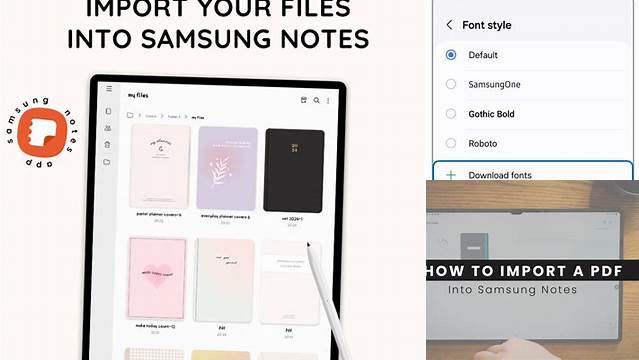
Import Fonts To Samsung Notes: A Simple Guide
Hey guys! Ever felt like the default fonts in Samsung Notes just don't quite cut it? Want to add a personal touch to your notes, making them truly yours? Well, you're in luck! Samsung Notes is a fantastic app, and one of its coolest features is the ability to import custom fonts. This means you can break free from the ordinary and inject some serious style into your note-taking. In this comprehensive guide, we'll walk you through everything you need to know about importing fonts into Samsung Notes, from finding the perfect fonts to installing them and troubleshooting common issues. So, grab your Galaxy device, and let's get started!
Why Import Fonts into Samsung Notes?
Before we dive into the how-to, let's talk about the why. Why bother importing fonts at all? The answer is simple: personalization. Default fonts are, well, default. They're designed to be universally acceptable, but they often lack character. Importing fonts allows you to:
- Express your personality: Choose fonts that reflect your style and preferences. Whether you're into elegant calligraphy fonts, bold sans-serifs, or quirky handwritten styles, the possibilities are endless.
- Improve readability: Certain fonts are simply easier to read than others, especially for extended note-taking sessions. You can select fonts that minimize eye strain and maximize comprehension.
- Enhance organization: Use different fonts to distinguish between headings, subheadings, and body text, making your notes more visually organized and easier to navigate.
- Create a unique aesthetic: Stand out from the crowd with notes that are visually appealing and reflect your individual flair. This can be particularly useful for students, professionals, or anyone who wants to make a lasting impression.
- Accessibility: Some fonts are specifically designed to be more accessible for people with dyslexia or other visual impairments. Importing these fonts can make your notes more inclusive.
Think of your notes as a canvas. The default fonts are like using the same old brush every time. Importing fonts is like adding a whole new set of tools to your artistic arsenal. You can create notes that are not only functional but also beautiful and expressive. Plus, it's just plain fun to experiment with different fonts and see how they transform your notes!
Finding the Perfect Fonts for Samsung Notes
Okay, so you're sold on the idea of importing fonts. The next step is finding those perfect fonts that will elevate your note-taking game. But where do you even begin? The internet is a vast ocean of fonts, and it can be overwhelming to navigate. Don't worry, we've got you covered. Here are some great resources for finding fonts, along with some tips for choosing the right ones:
Font Repositories
These websites are treasure troves of fonts, offering a wide variety of styles, licenses, and price points:
- Google Fonts: This is a fantastic starting point, especially because all the fonts are free and open-source. Google Fonts offers a huge selection of fonts in various styles, and they're all optimized for web and mobile use. This means they'll look great on your Samsung Notes app.
- Adobe Fonts: If you have an Adobe Creative Cloud subscription, you have access to Adobe Fonts, a vast library of professional-quality fonts. These fonts are seamlessly integrated with Adobe products, but you can also use them in other apps like Samsung Notes.
- MyFonts: MyFonts is a commercial font marketplace, offering a wide selection of premium fonts from independent designers and foundries. If you're looking for something truly unique and high-end, MyFonts is worth checking out.
Tips for Choosing Fonts
With so many fonts to choose from, how do you narrow it down? Here are some tips to help you find the perfect fonts for your Samsung Notes:
- Consider your style: What kind of aesthetic are you going for? Do you prefer clean and modern fonts, or something more elegant and traditional? Think about the overall look and feel you want to create.
- Prioritize readability: Choose fonts that are easy to read, especially for long passages of text. Avoid overly decorative or stylized fonts that can strain the eyes.
- Think about hierarchy: Select different fonts for headings, subheadings, and body text to create a clear visual hierarchy. A bolder font for headings and a simpler font for body text is a classic combination.
- Test it out: Before committing to a font, try it out in Samsung Notes. Write a few sentences and see how it looks on your device. Pay attention to the spacing, kerning, and overall readability.
Conclusion: Unleash Your Creativity with Custom Fonts
Importing fonts into Samsung Notes is a simple yet powerful way to personalize your note-taking experience. By breaking free from the default fonts, you can express your unique style, improve readability, enhance organization, and create notes that are both functional and beautiful. So go ahead, explore the vast world of fonts, find your favorites, and unleash your creativity in Samsung Notes! You'll be amazed at the difference a simple font change can make. Happy note-taking, guys!